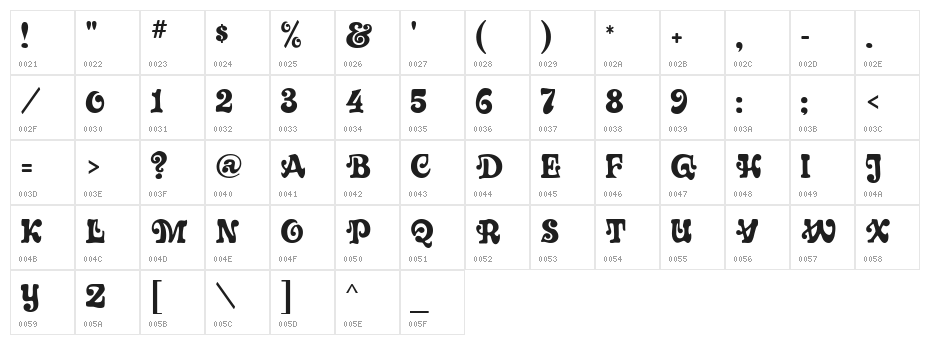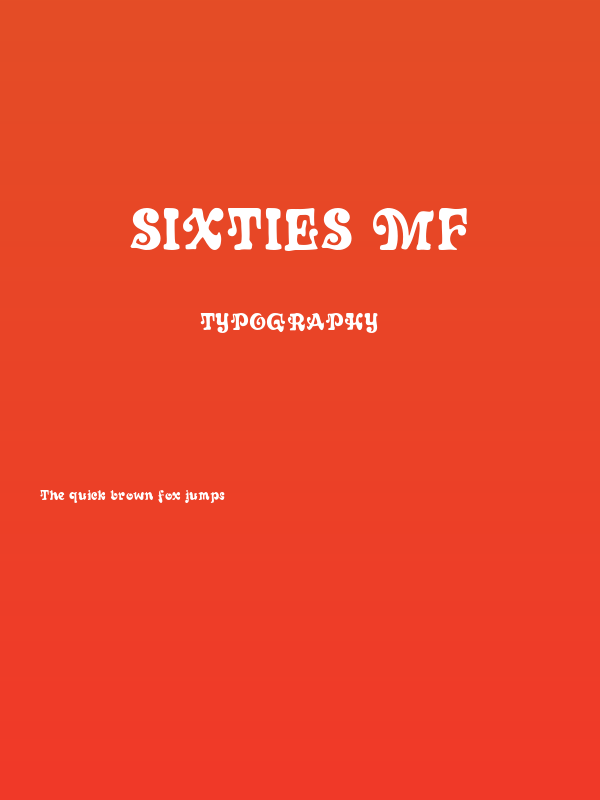
Sixties MF Font
Sixties MF Description
This font exudes a playful and retro vibe, reminiscent of the 1960s. The characters are bold and curvaceous, with a whimsical flair that adds a sense of fun and nostalgia. The uppercase letters have a strong presence with their thick strokes and unique, decorative elements. The lowercase letters maintain the same playful style, with rounded edges and a consistent weight throughout. The numbers are equally bold, ensuring they stand out in any design. Special characters are creatively styled, maintaining the overall theme. This font is perfect for projects that aim to capture a vintage or retro aesthetic, making it ideal for posters, album covers, and themed events.
| Proposed Projects | Ideal for retro-themed posters, album covers, and event branding. |